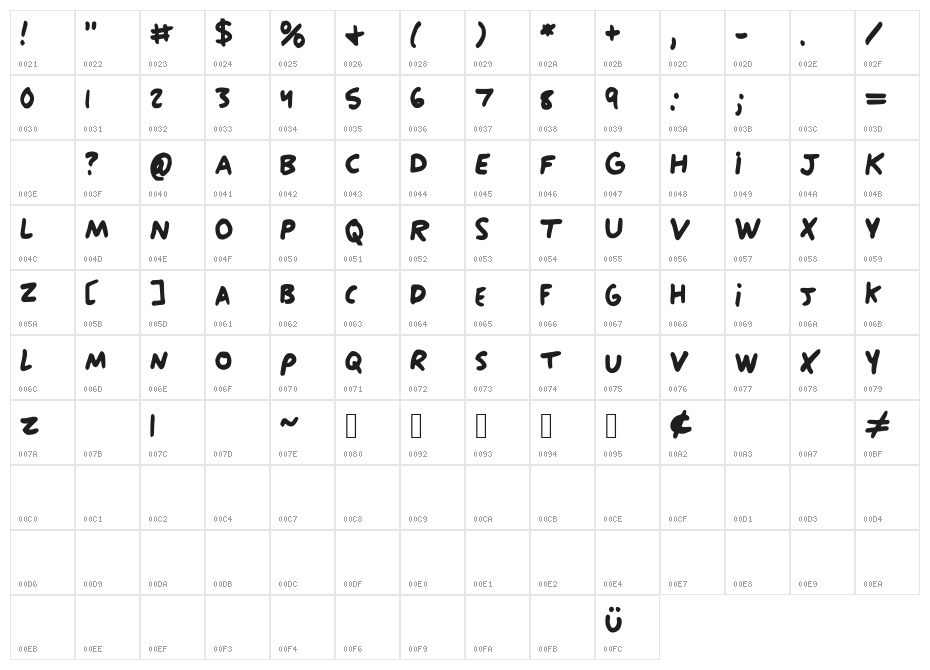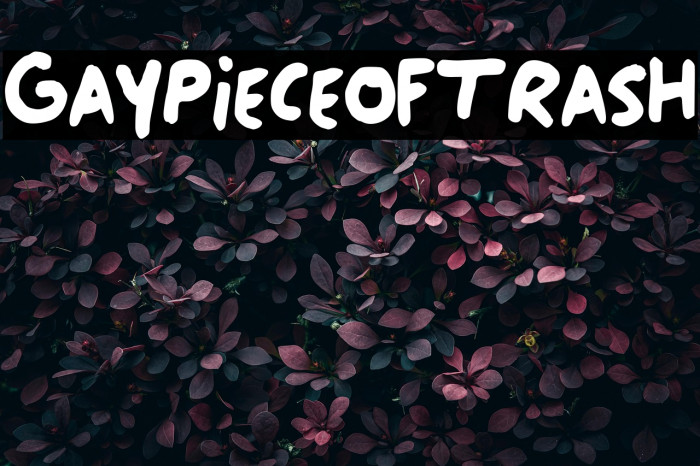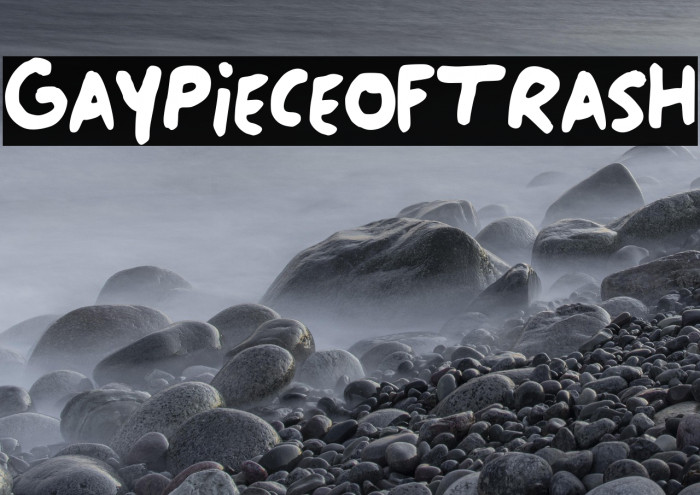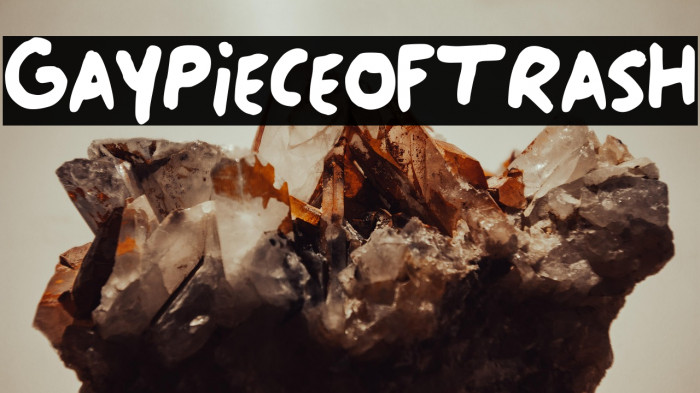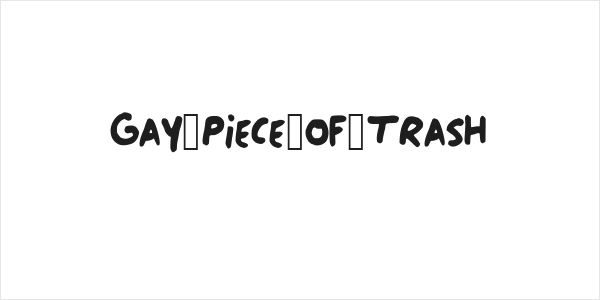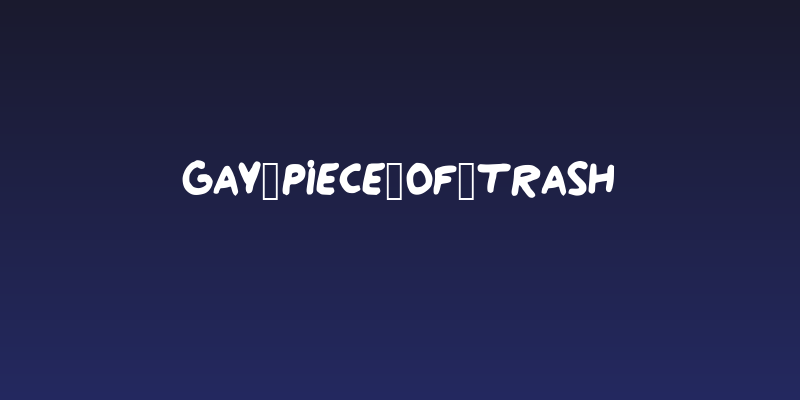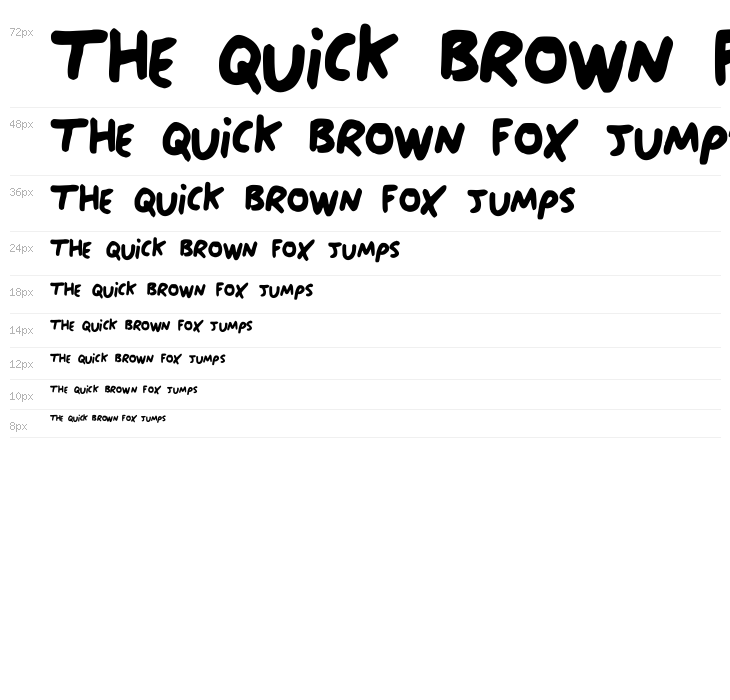
Gay_Piece_of_Trash Font
Gay_Piece_of_Trash Description
This font features a playful and bold handwritten style, characterized by its thick strokes and slightly irregular shapes that give it a casual, informal appearance. The letters are rounded and have a consistent weight throughout, contributing to a cohesive look. The font's design is reminiscent of hand-drawn lettering, making it suitable for projects that require a personal touch. The characters are well-spaced, ensuring readability while maintaining a lively and dynamic feel. This font is versatile and can be used in various creative contexts.
| Use Case | Headlines, Logos, Informal text |
| Proposed Projects | Ideal for greeting cards, posters, children's books, and playful branding. |